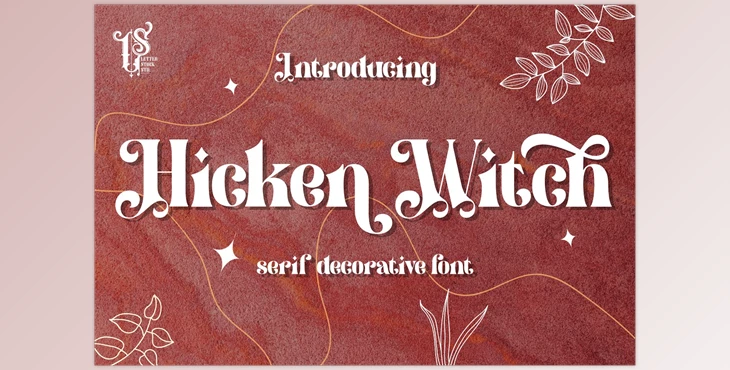
Hicken Witch Typeface:
This pair was inspired by a vintage flyer I was able to see a few weeks ago. it was made by hand specifically to give a natural feel of handmade in the brand's identity. I then made it neat using the pen tool.
Hicken Witch font comes with 209 characters set. The font is ideal for designing logos, labels packaging, invitations, packaging advertising, and more. This font can make your design distinctive, unique, and stylish with its modern calligraphy styles.